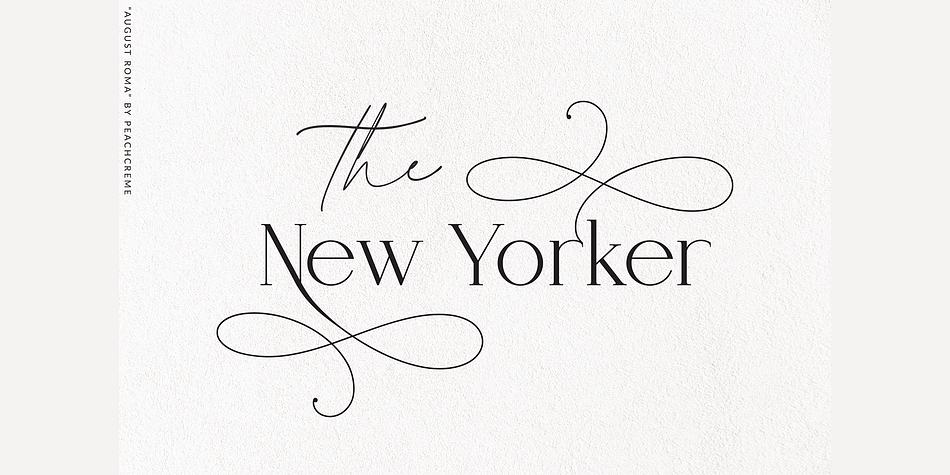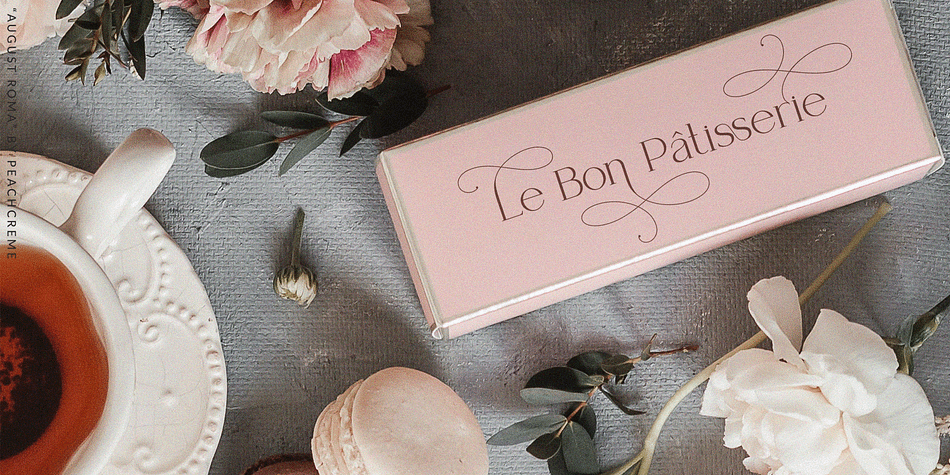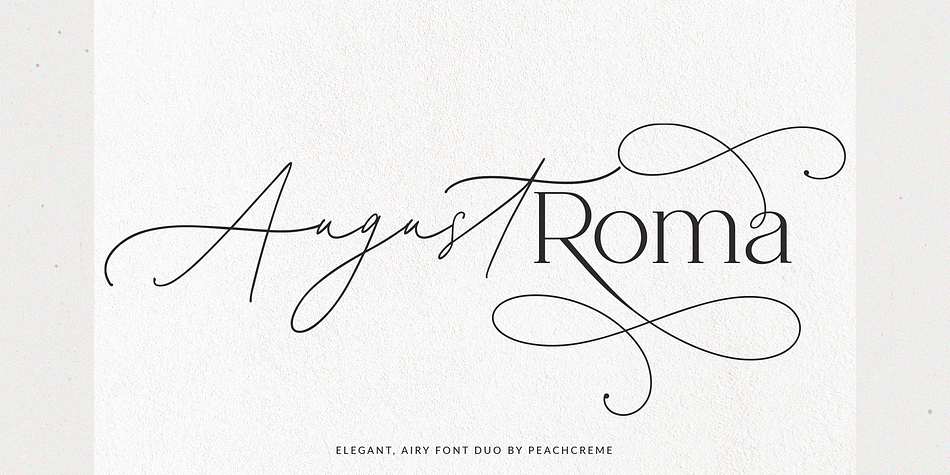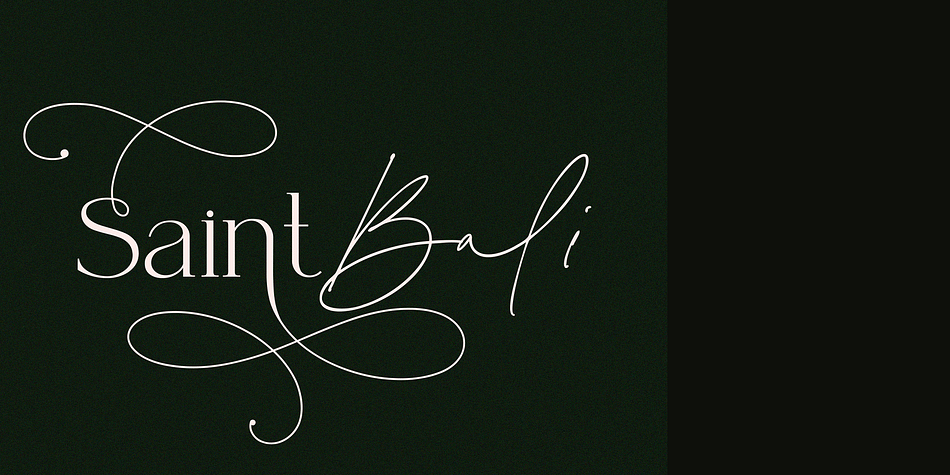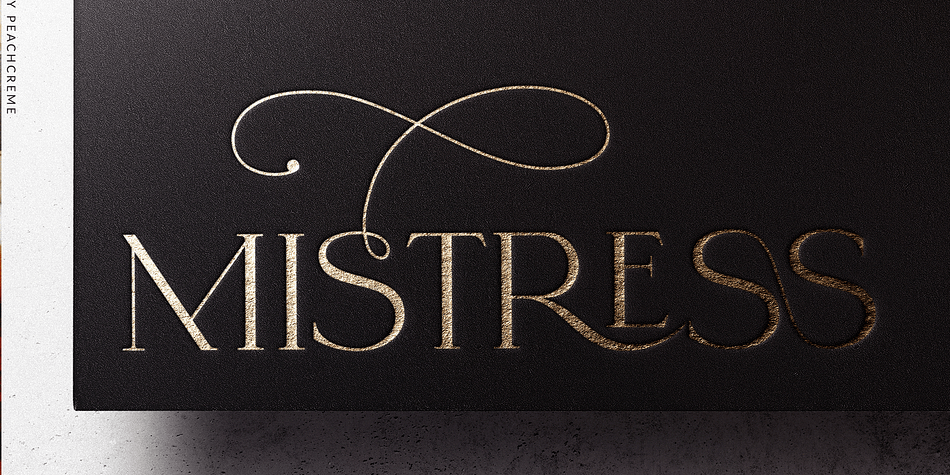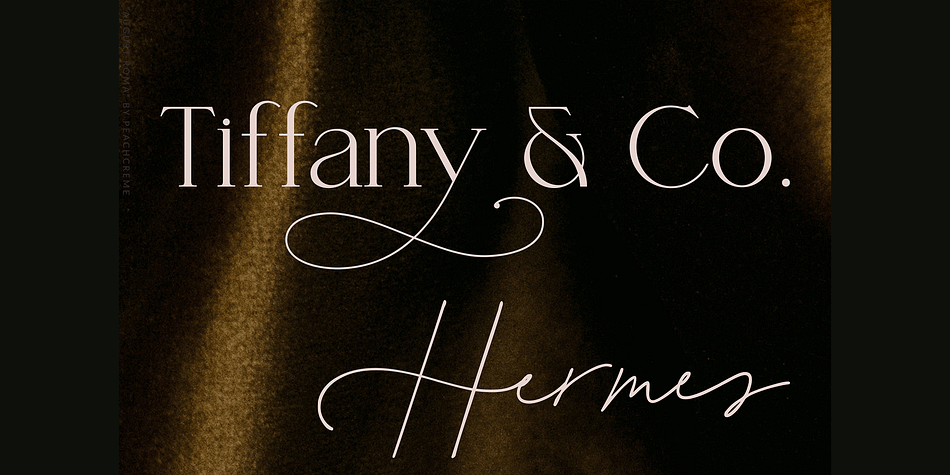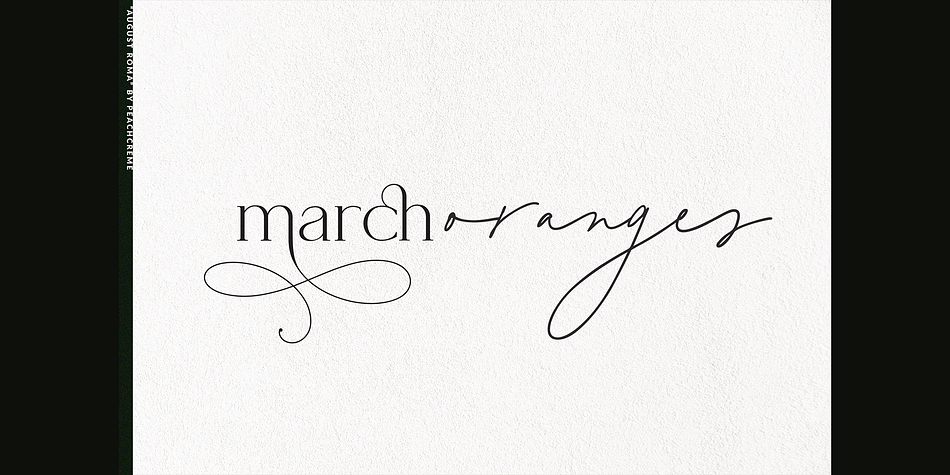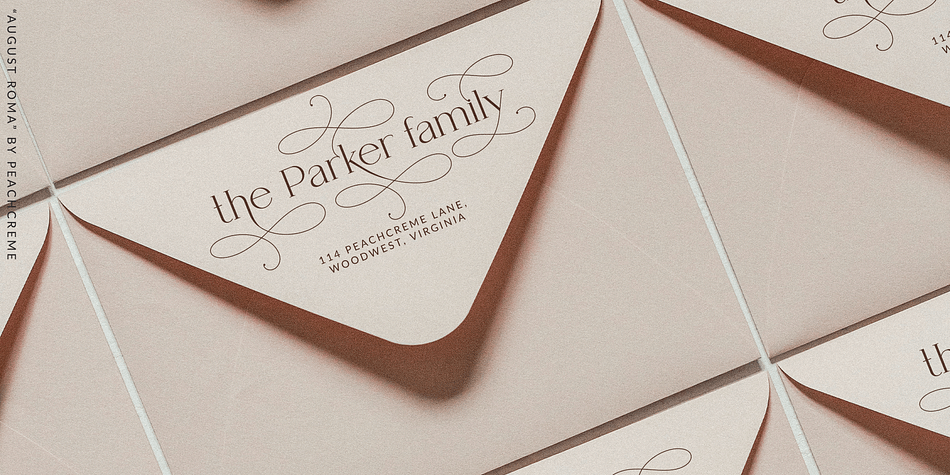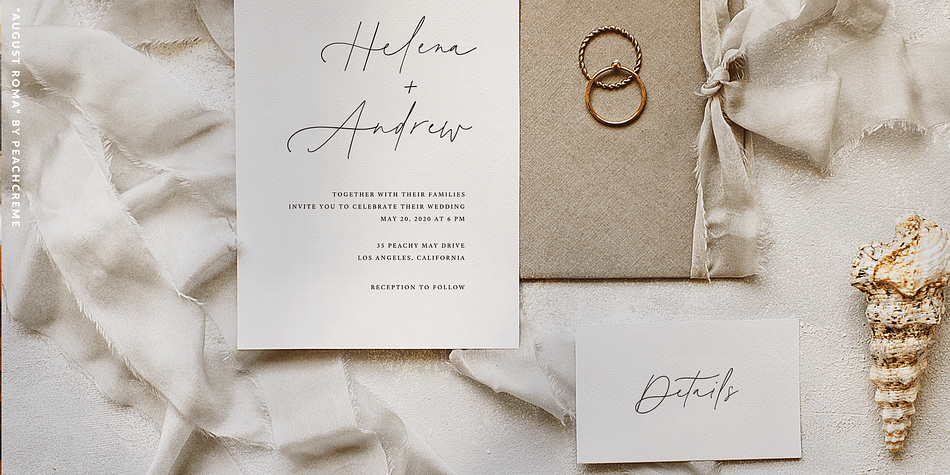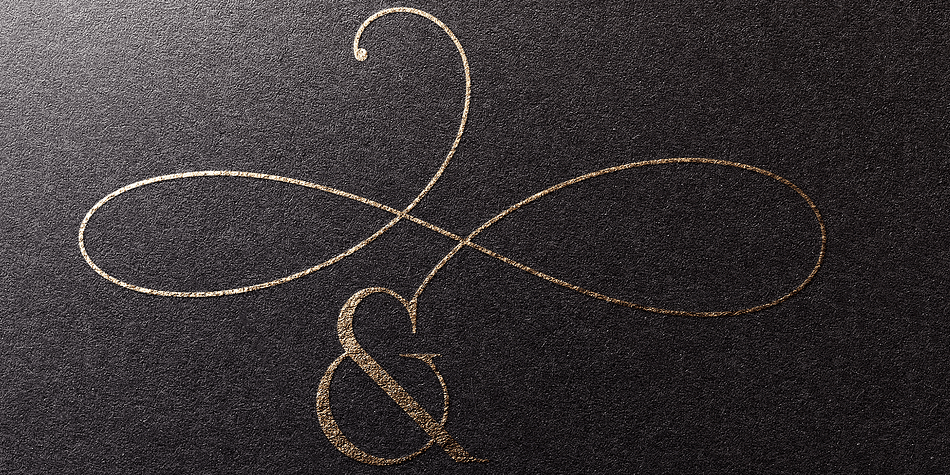
August Roma
August Roma is a display serif and hand drawn font family. This typeface has two styles and was published by PeachCréme.
I’m thrilled to present our new refined font fuo.
August Roma - born to be your fav elegant fonts. Create stunning branding, sleek wedding invites, versatile holiday cards, and sweet book covers.
August Roma Serif has all uppercase, lowercase, ampersand, numeral swashes. A stylish script compliments serif font perfectly and can be used solo as well without losing gorgeousness.